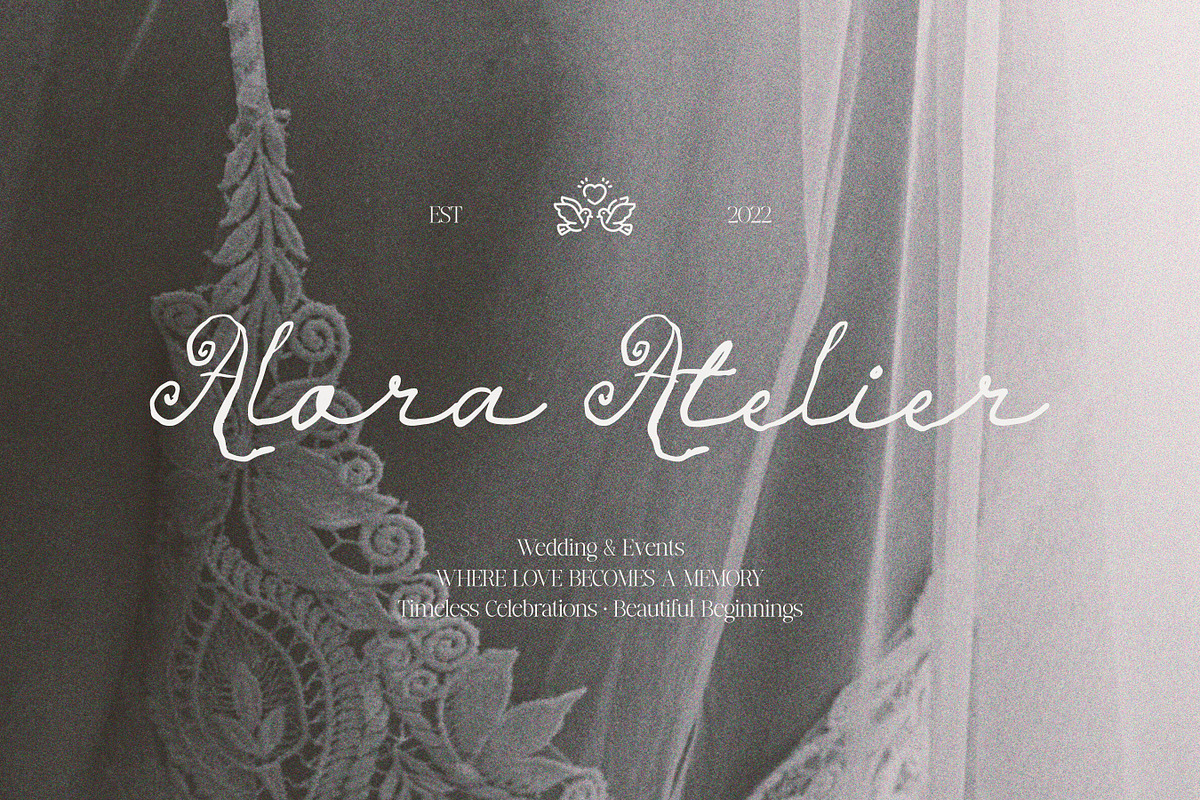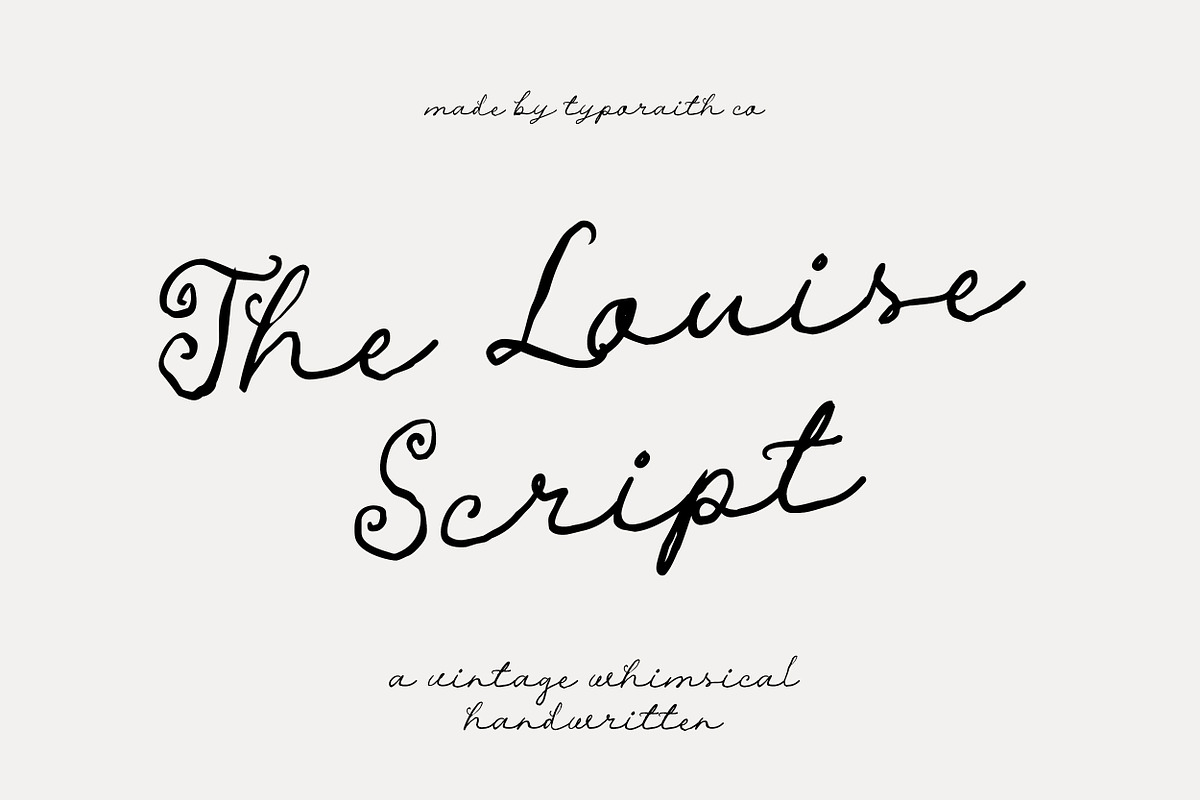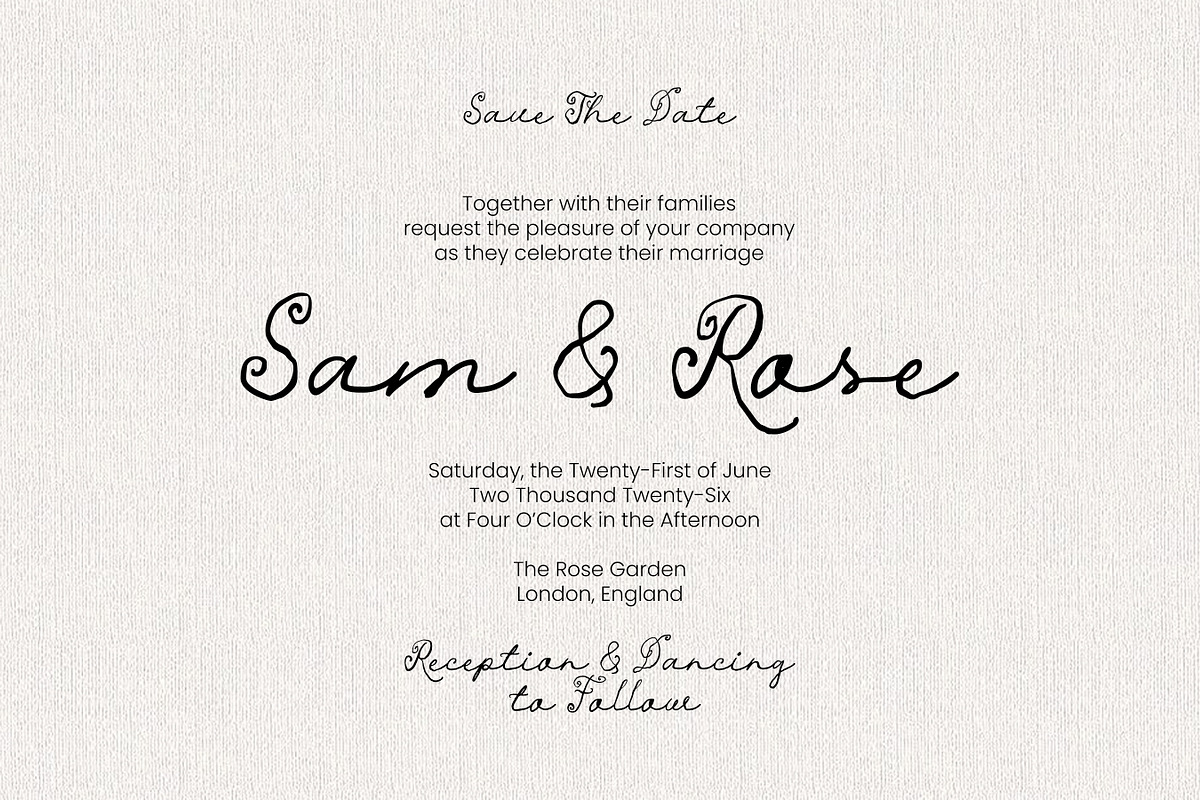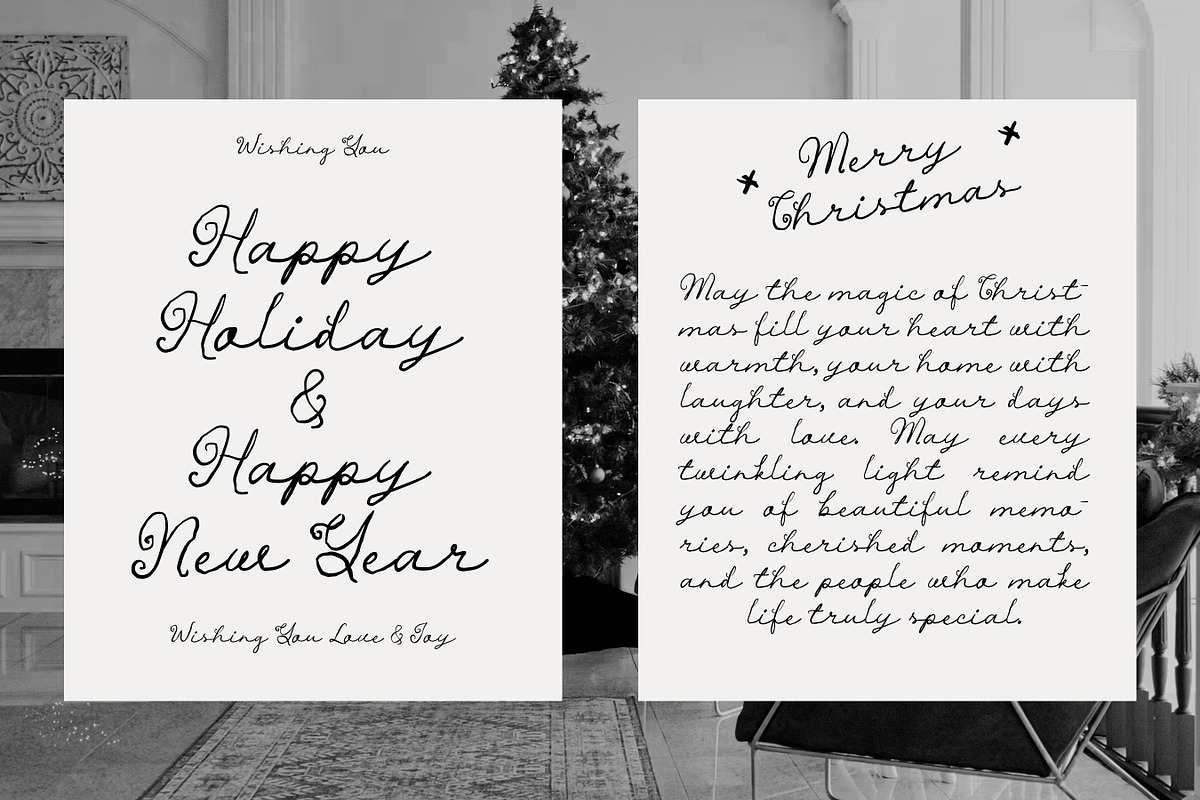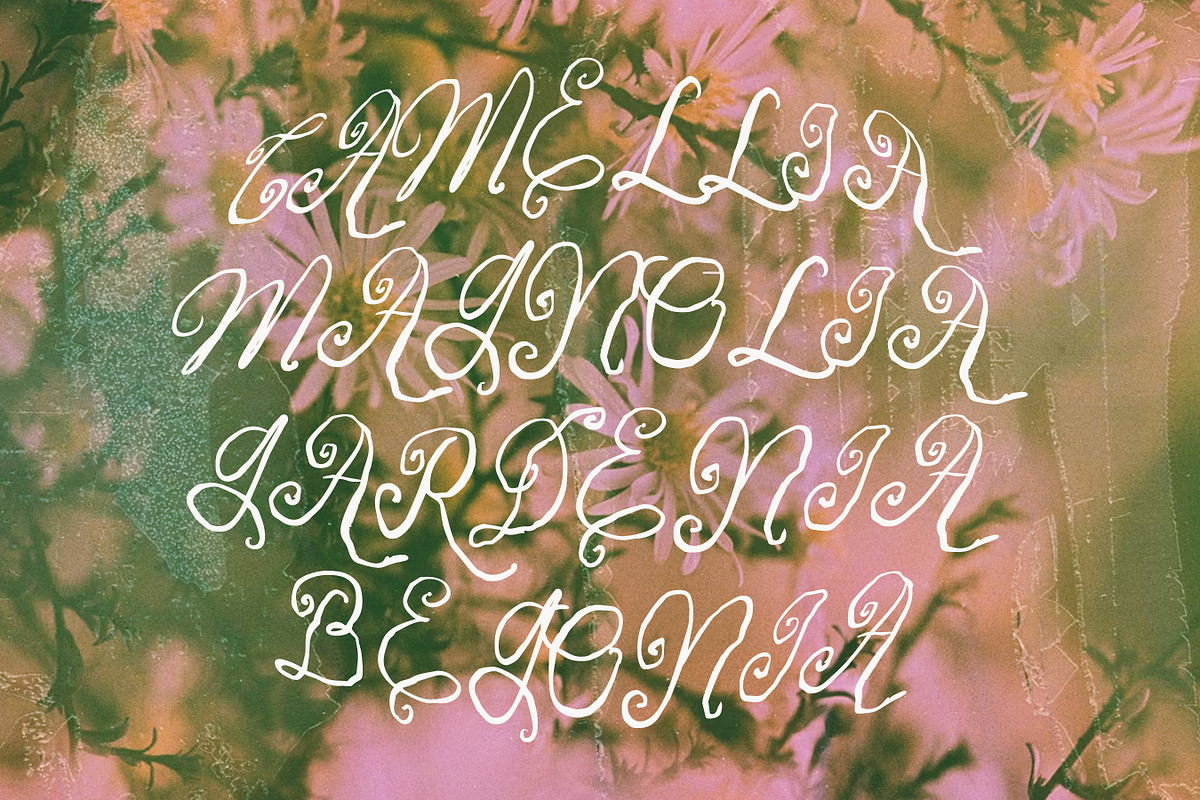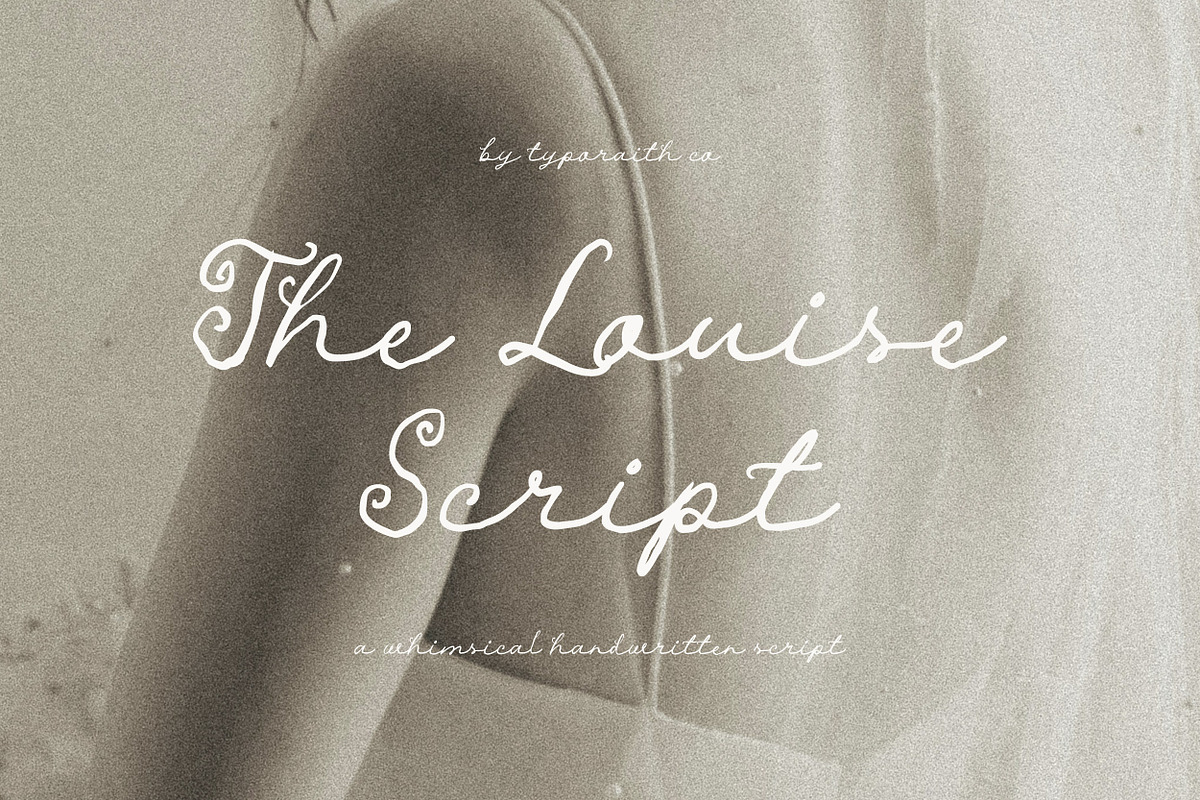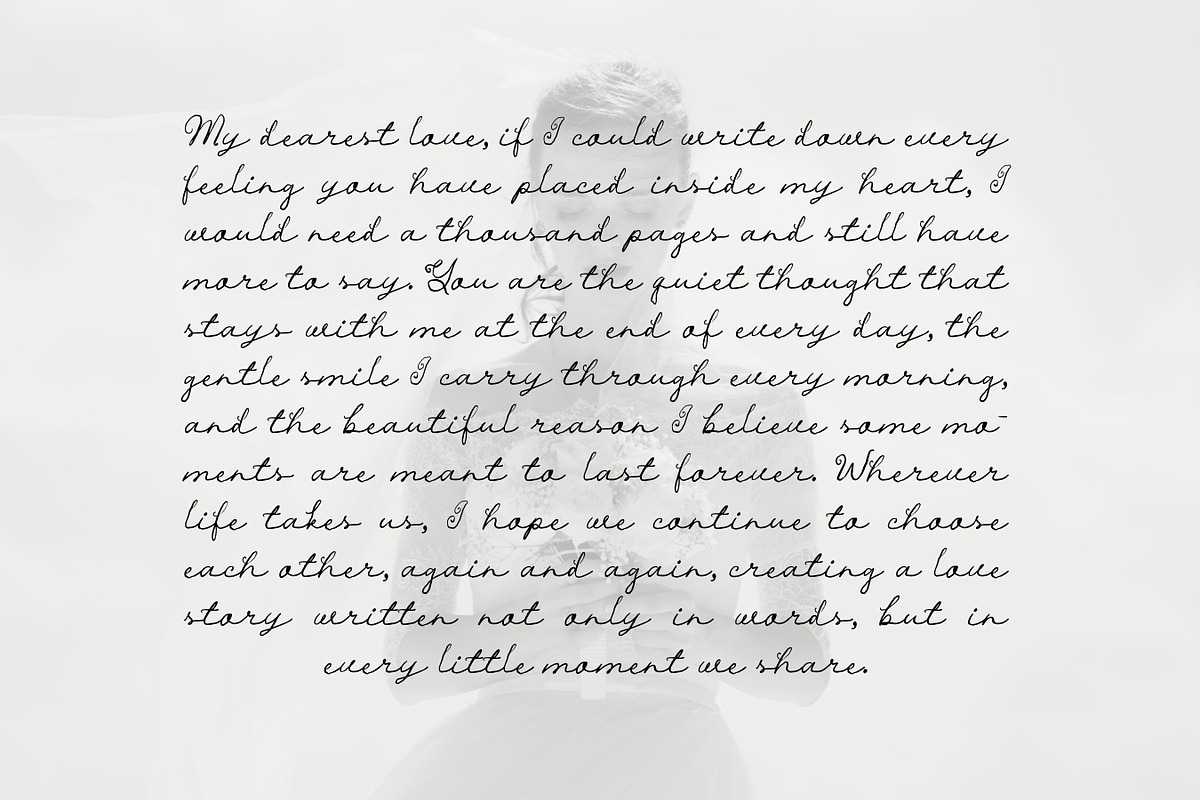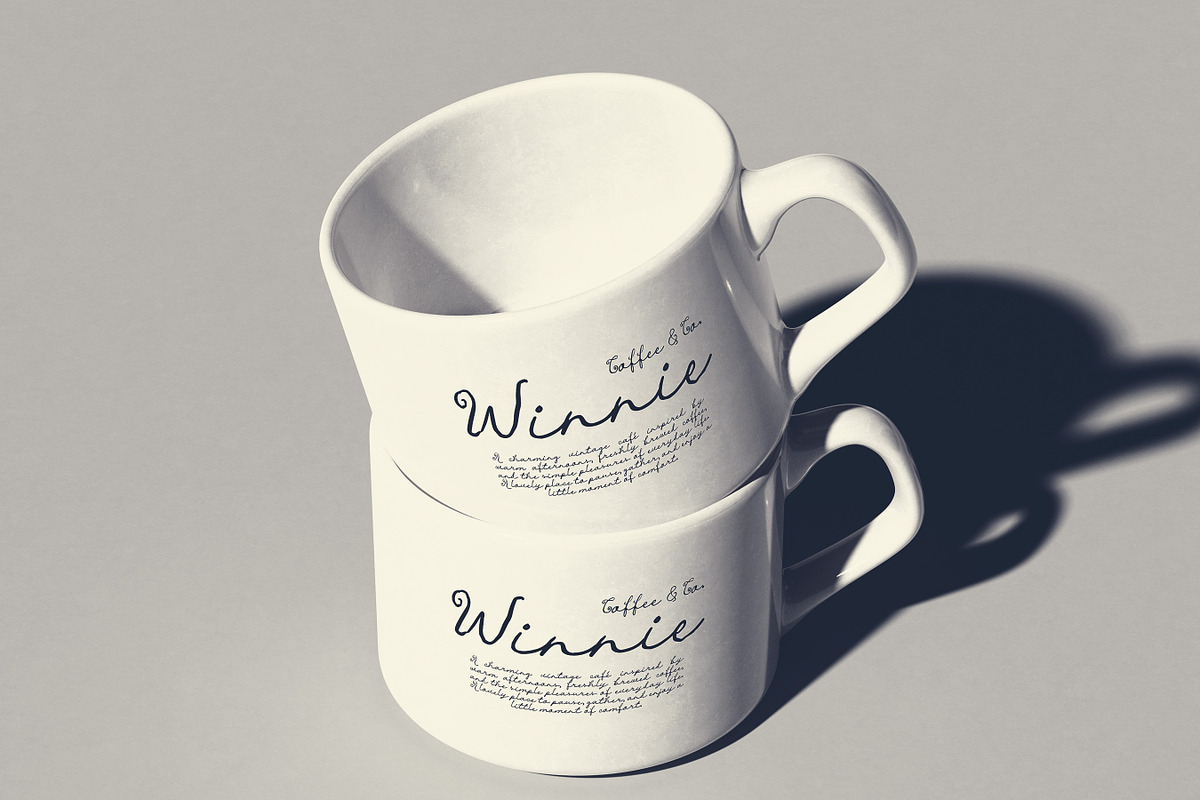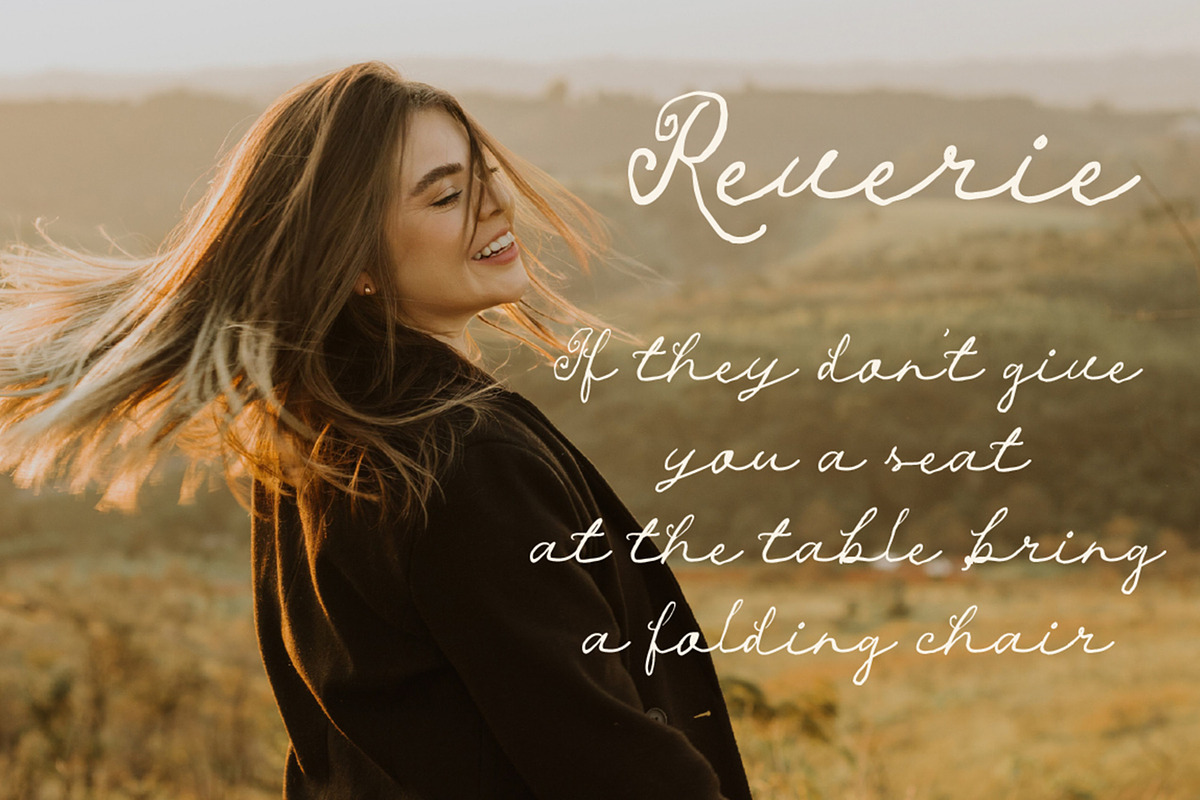
The Louise | Whimsical Script Font
The Louise Script is a whimsical handwritten script designed to bring a delicate, romantic, and effortlessly elegant touch to your creative projects. With its flowing strokes, charming letterforms, and natural handwritten character, this typeface is perfect for designs that need a personal and sophisticated feel.
Inspired by the beauty of handwritten lettering, The Louise Script works beautifully for wedding invitations, romantic stationery, branding, logos, packaging, social media designs, quotes, greeting cards, editorial projects, and more.
Its graceful and expressive style makes it easy to create elegant typography while maintaining a warm, authentic handwritten appearance.
Wedding invitations & stationery
Wedding planners & event branding
Logos & brand identity
Beauty & fashion branding
Packaging & labels
Greeting cards
Quotes & social media graphics
Editorial designs
Posters & signage
Personal projects
The Louise Script is made for designers, creatives, and brands looking for a beautiful handwritten typeface that feels romantic, graceful, timeless, and effortlessly charming.